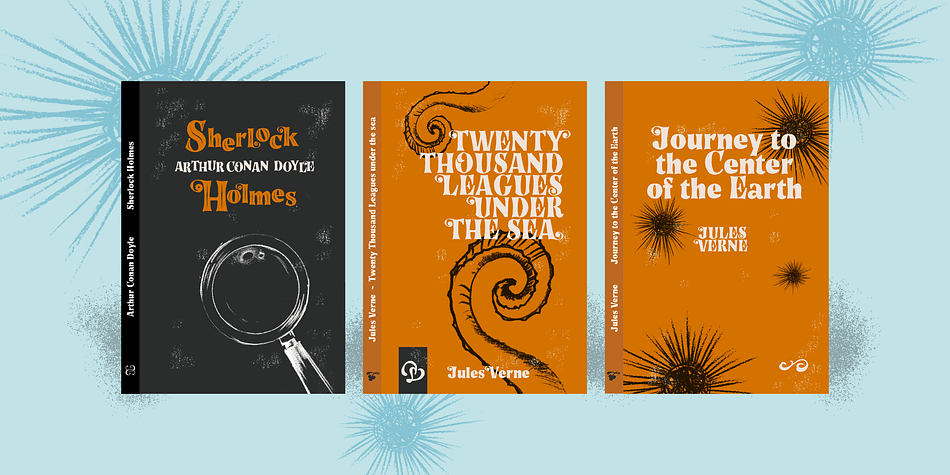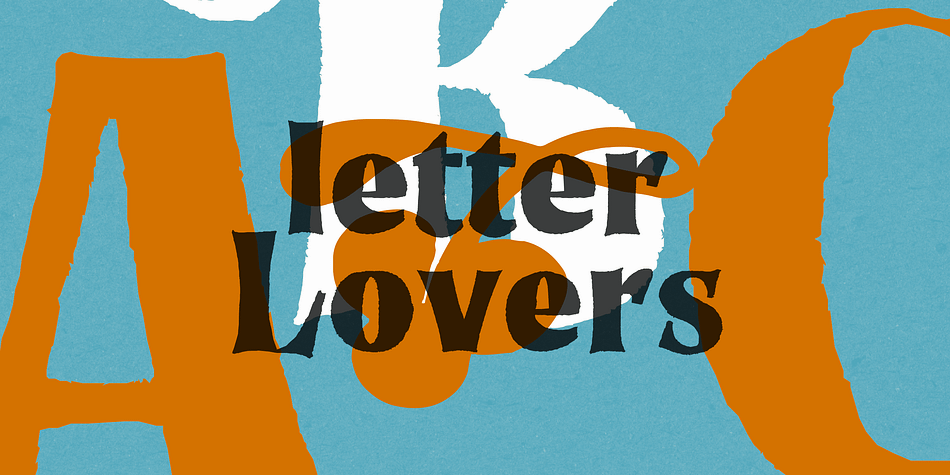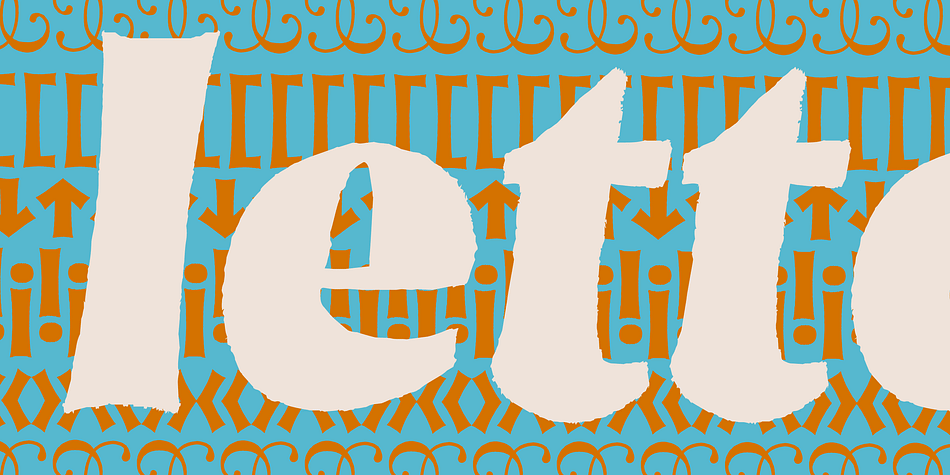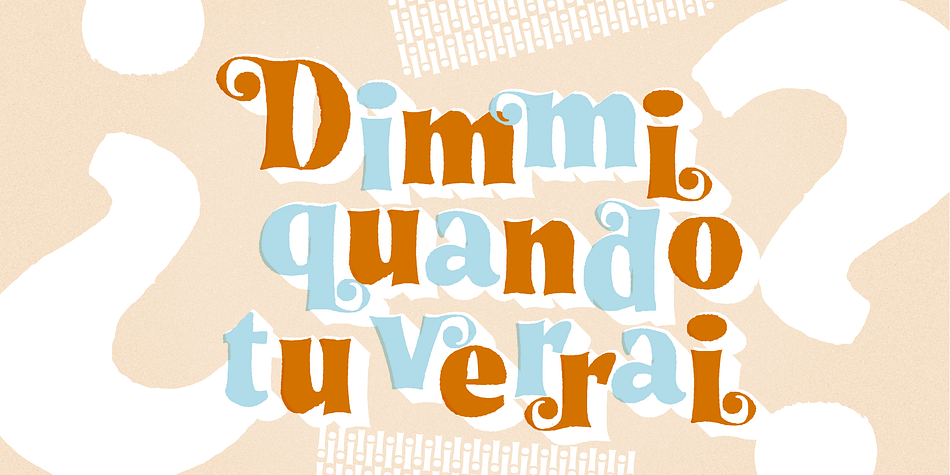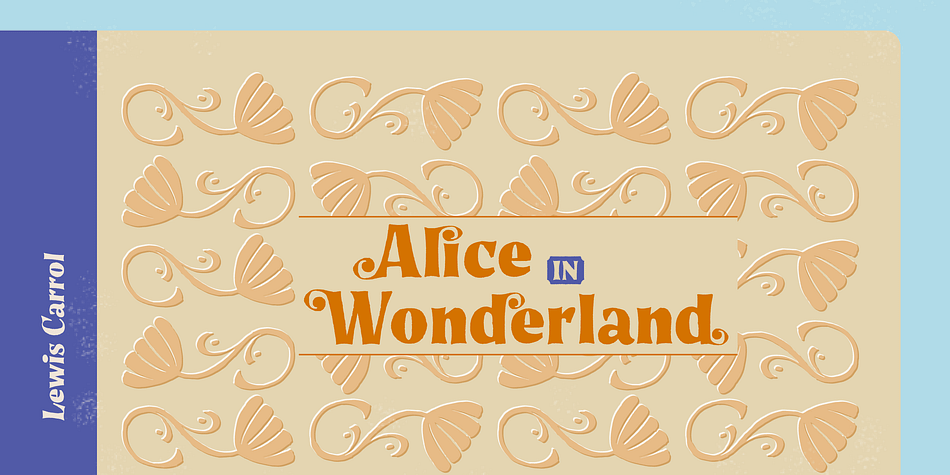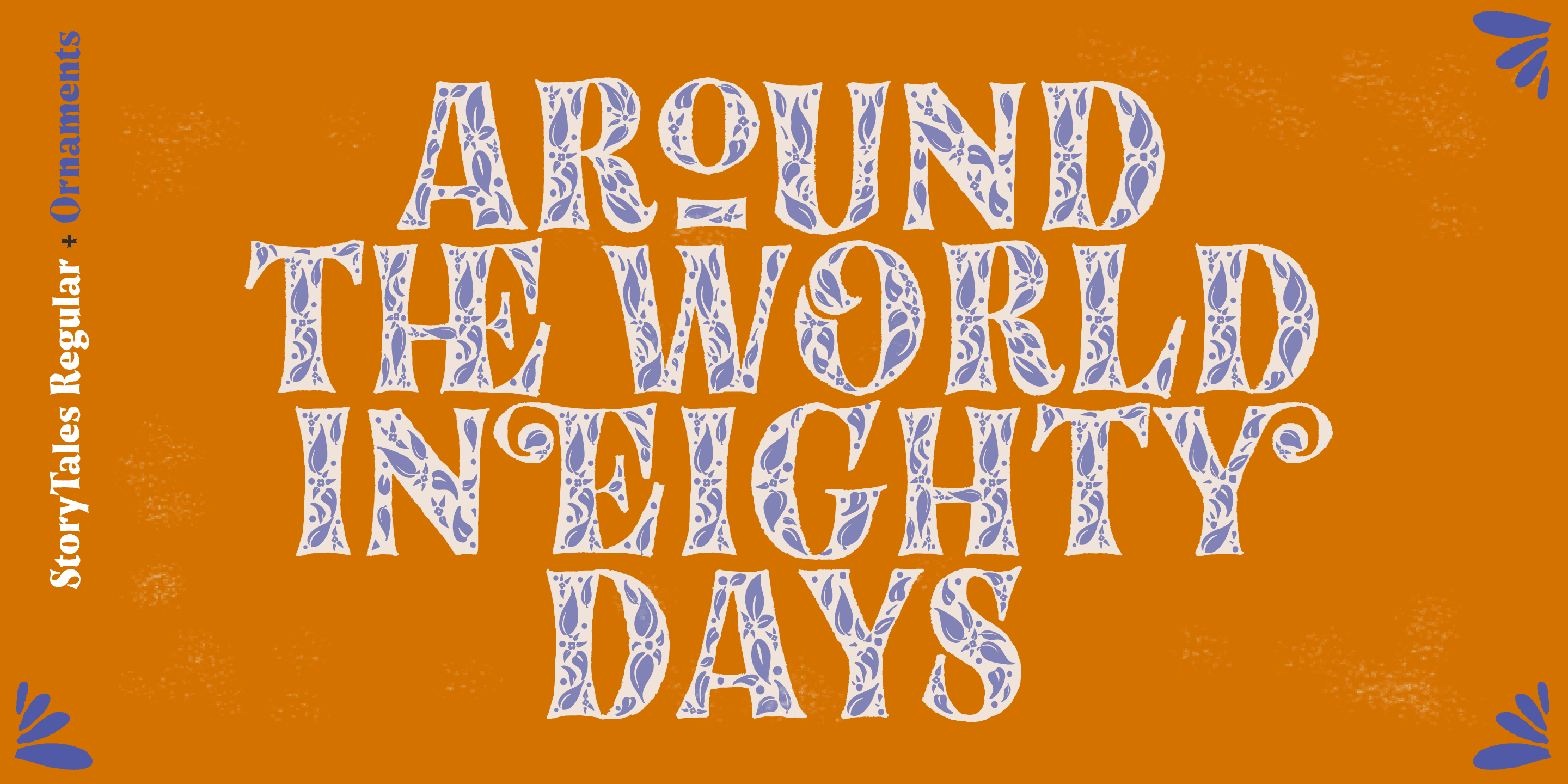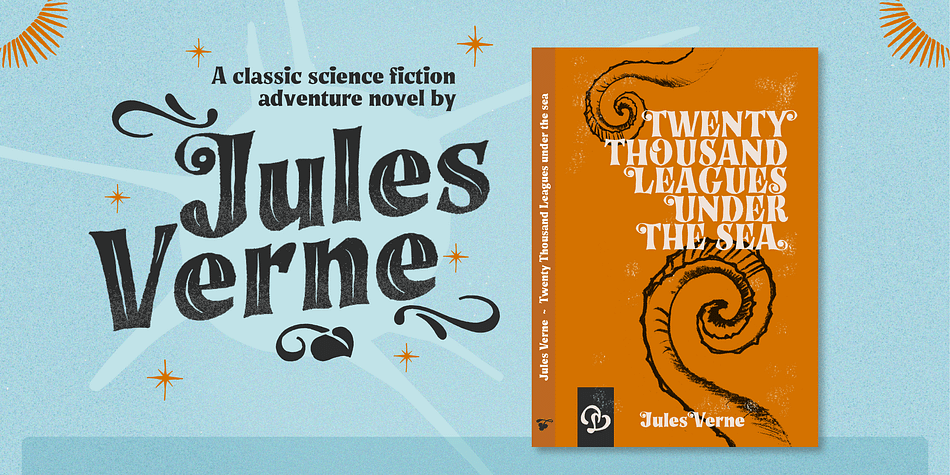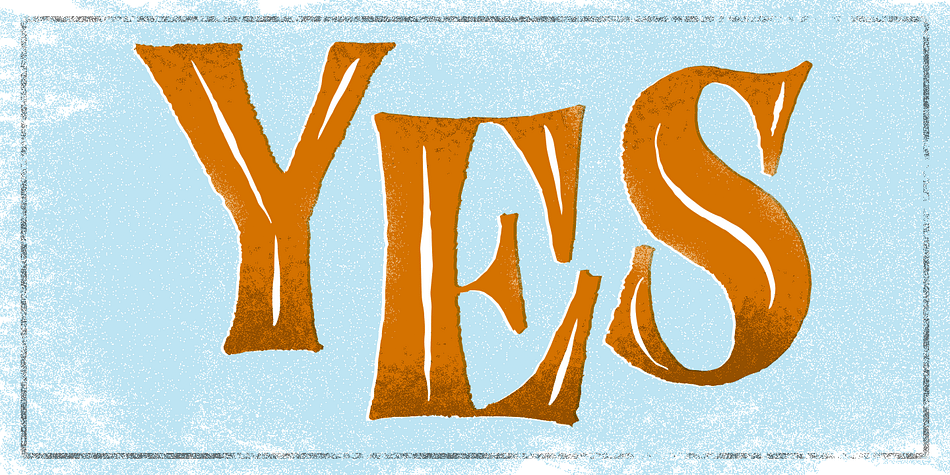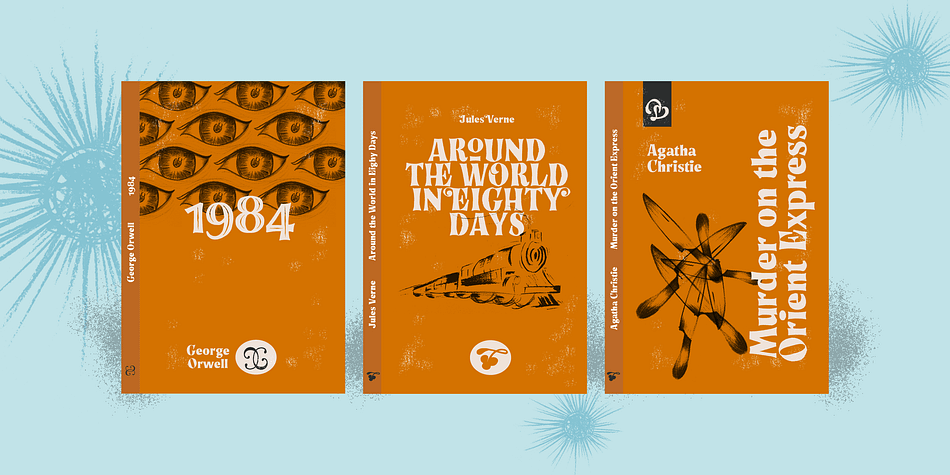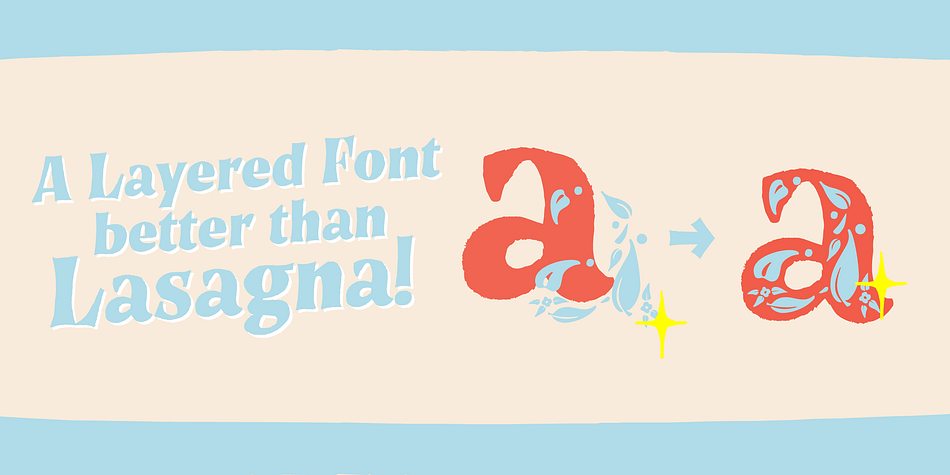
Designed by Paco González and Giuseppe Salerno, Story Tales is a display serif font family. This typeface has ten styles and was published by Resistenza.es.
A fairy tale is a folklore genre that takes the form of a short story. Story tale, is a new type family for wonderous, romantic, magical and playful narratives brought to you by Resistenza.
The 1970s were wild and whimsical times. Book covers from this time were iconic, innovative and enduring; bold colour and stylised pattern dominated.
Story Tales forms were inspired by 70s books covers, and aims to encapsulate the zeitgeist of the time, but the typeface is by no means constrained to revivals of this era. There are nods to 60’s flower power & psychedelia, chromatic type and decorative queues from the 1800s and the spirit of post-war era children’s almanacks. It is also perfectly suited to inspiring curiosity, imagination and fantasy in today’s audiences.
Each of Story Tales 8 styles (4 upright and 4 italics) stack on top of one another giving the designer broad aesthetic range. This layering of styles and the ornamental illumination allows striking multi-coloured typography for your book covers, editorial and poster designs.